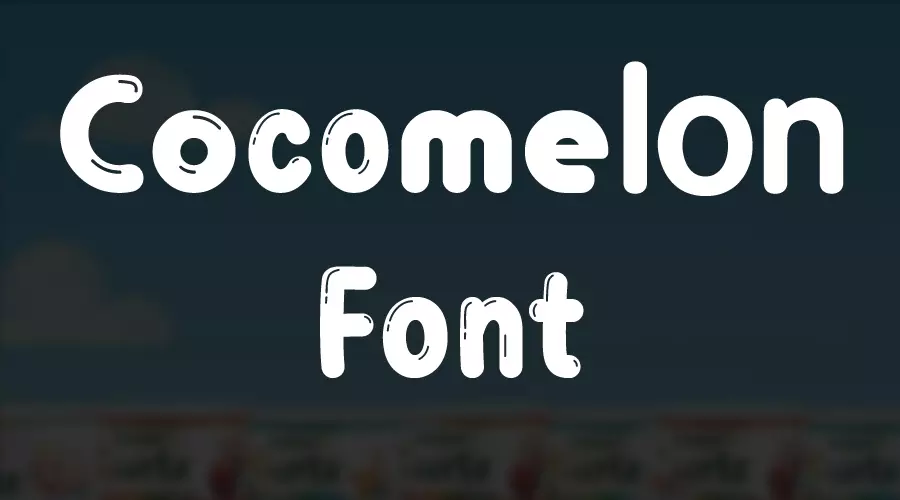
About Cocomelon YouTube Channel Logo
The Cocomelon logo consists of a stylized wordmark with cartoon illustrations of watermelons and ladybugs. It is not based on any specific font, and there is no official “Cocomelon font.” The logo has undergone a few design updates since the channel was founded. It is not clear from the available information what specific changes have been made to the logo over time. which may be of interest to designers looking to create designs inspired by the brand.
About Cocomelon Font
As mentioned before, there is no specific font called Cocomelon Font. But through research and observation, we found three fonts that are very similar to the Cocomelon YouTube Channel Logo font. Below, we have provided the font information and preview for better understanding.
1. Muska Font
Muska is a rounded sans-serif font created by Jesta Designs. It has a playful, childlike feel and could be a good option for designers looking to create designs inspired by the Cocomelon YouTube channel logo. The font has a similar appearance to the logo. The font is available in two styles (Plain and Highlighted) and includes basic glyphs such as uppercase and lowercase letters, numbers, and punctuation. It is free to download and can be used for personal purposes only.
2. Bubble Bobble Font
Bubble Bobble is a playful font created by Almarkhatype. It contains uppercase and lowercase letters, symbols, and supports multiple languages. It is suitable for a variety of design projects, including crafting, branding, and decorating. It is particularly well-suited for use in educational materials, wedding invitations, and children’s projects. You can create designs inspired by the Cocomelon YouTube channel logo.
3. OPTI Formula One Font
OPTI Formula One is a sans-serif typeface designed by Castcraft Software, Inc. It is a versatile font that can be used in a variety of graphic design projects to add elegance and beauty. The font is free for personal use only, and it cannot be used for commercial purposes without purchasing a license or obtaining permission from the author. OPTI Formula One Font has some visual similarities with the Cocomelon YouTube channel logo.